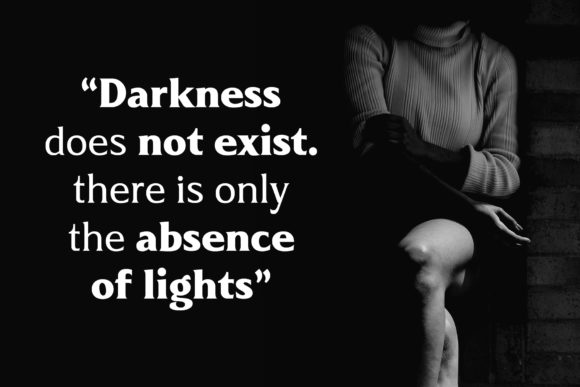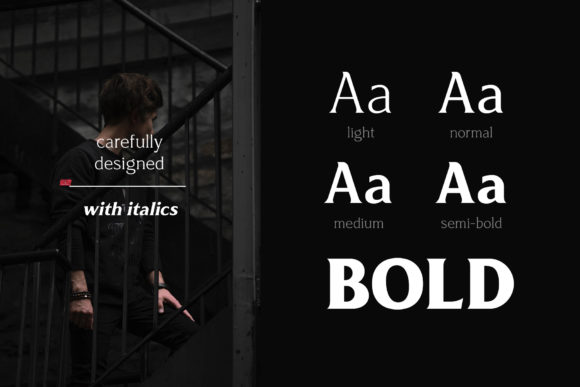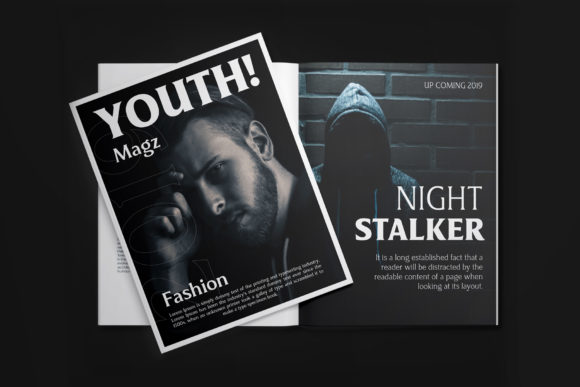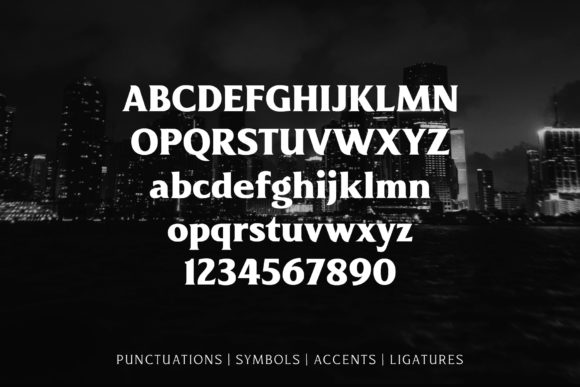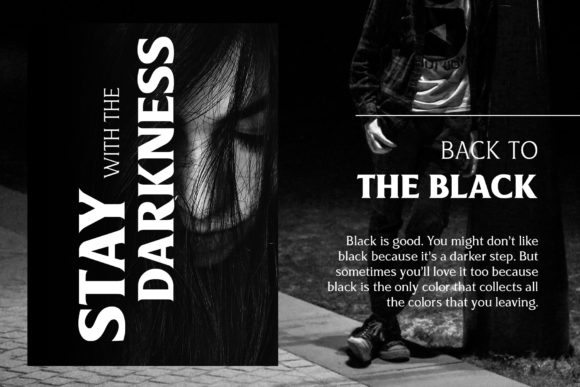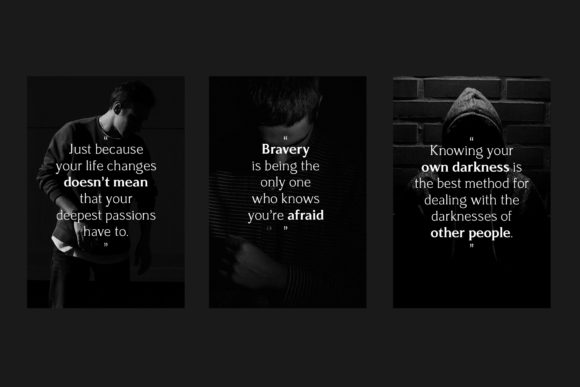
Introduction to Revans Font
Revans is carefully designed with a solid, luxurious, refined look & feel.
Key Features of Revans Font
Why Choose Revans Font?
Revans Font offers exceptional quality and versatility, making it a valuable addition to your design toolkit. Whether you’re creating for personal projects or commercial use, Revans Font delivers professional results.